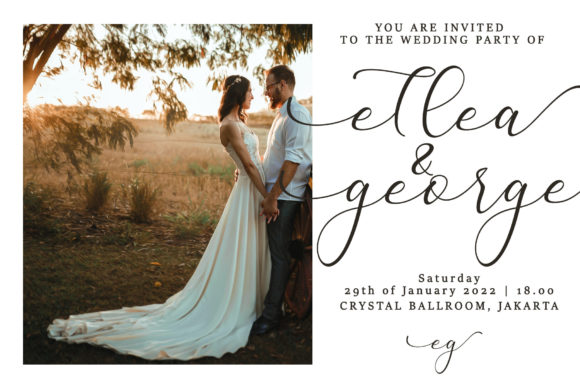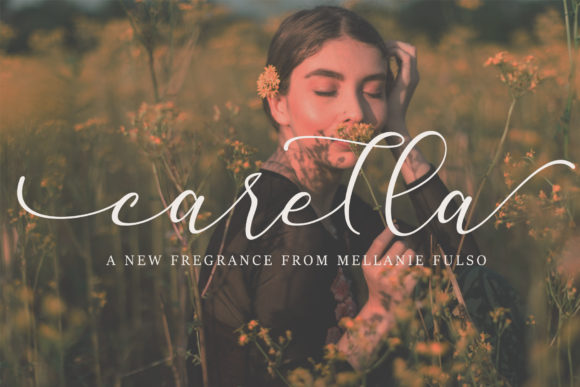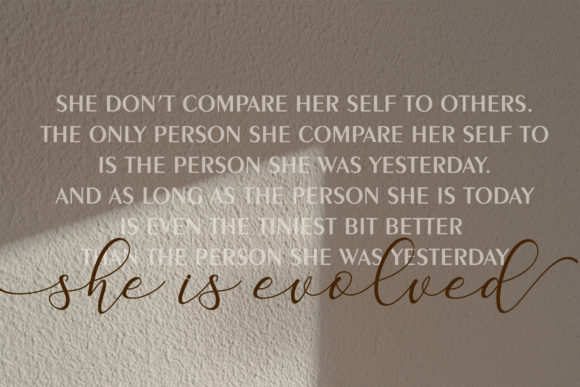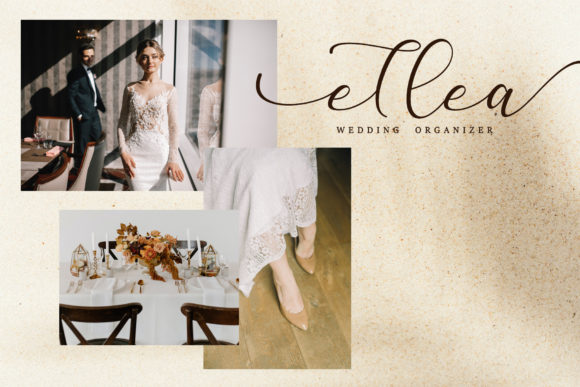
About Stefia Font
Stefia is a lovely calligraphy font with a beautiful swashes and ligatures. It looks stunning on wedding invitations, thank you cards, quotes, greeting cards, logos, business cards and every other design which needs a handwritten touch. This font is PUA encoded which means you can access all glyphs and swashes with ease!